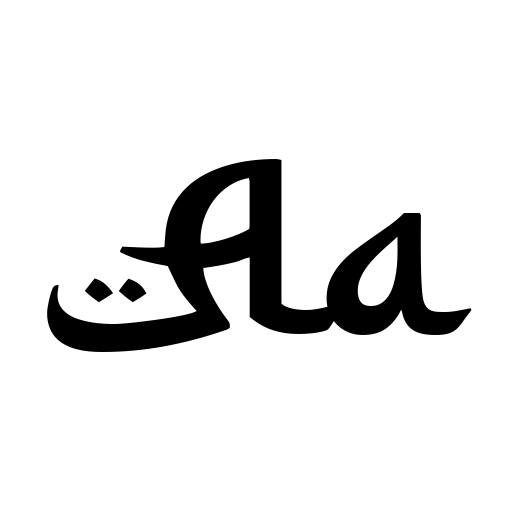
Billah is a unique, script-inspired font that blends Arabic calligraphic elements with a modern Latin touch, featuring fluid strokes and gentle curves. With its medium weight and moderate contrast, it conveys an elegant yet approachable personality, making it ideal for cultural branding, artistic projects, or creative headlines that require a distinctive, sophisticated look. This font works especially well in designs where a fusion of tradition and modernity is desired, such as logos and editorial displays.
Billah Font
About Billah Font